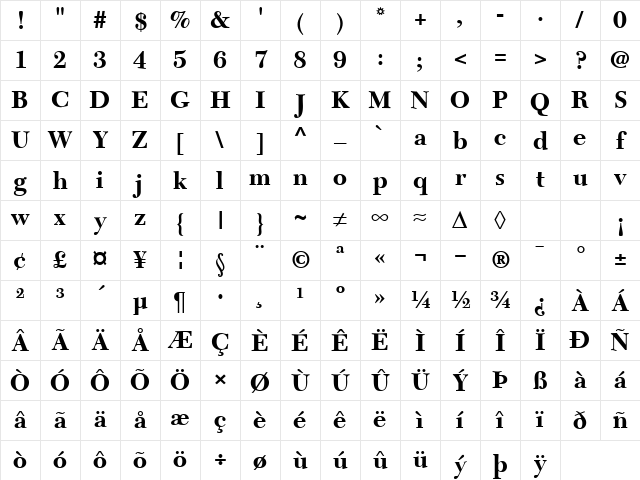
CalendarNova is a composed and adaptable typeface that performs quietly and consistently across a wide range of design contexts. Its bold stroke weight gives it real presence on the page.